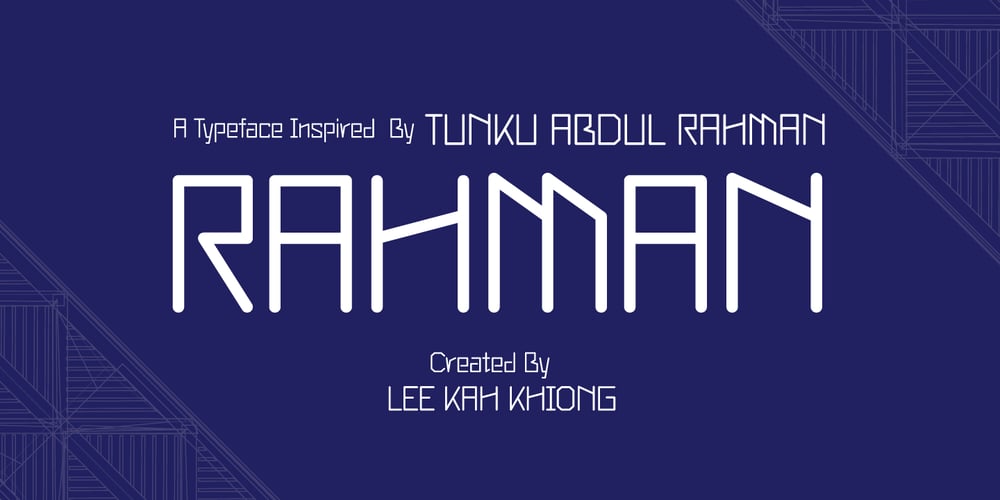
Rahman Font Family was designed by Lee Kah Khiong and published by Kah Khiong Design. Rahman contains 3 styles and family package options. Rahman font is based on the idea of reflecting the personality of the first Prime Minister of Malaysia, Tunku Abdul Rahman in a typeface design. This sans serif font shows the founding father of Malaysia as a modern, simple, open-minded, uncomplicated and straightforward person. The font is suitable for posters, labels as well as book covers and paper printing.